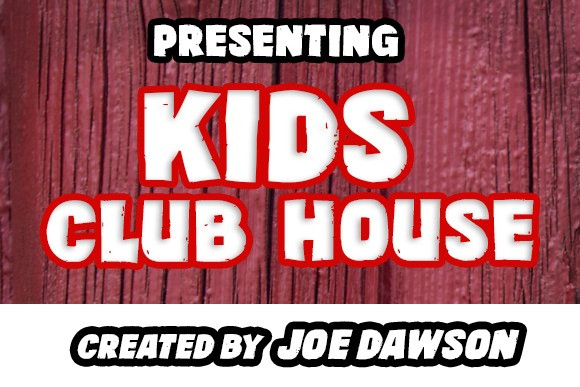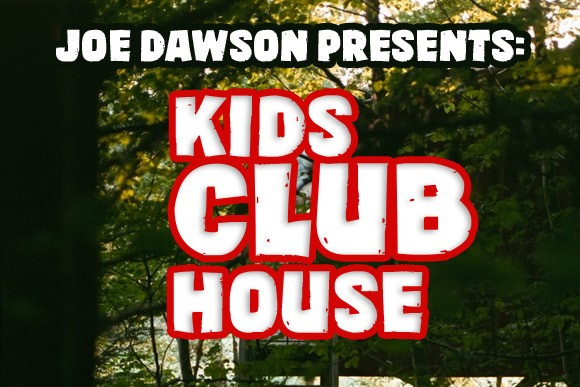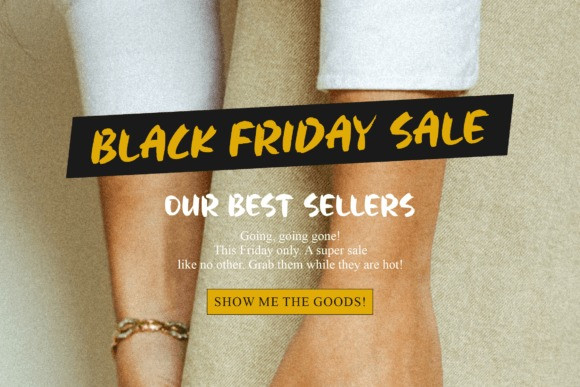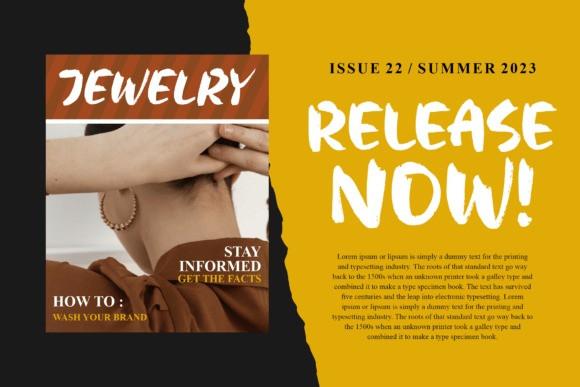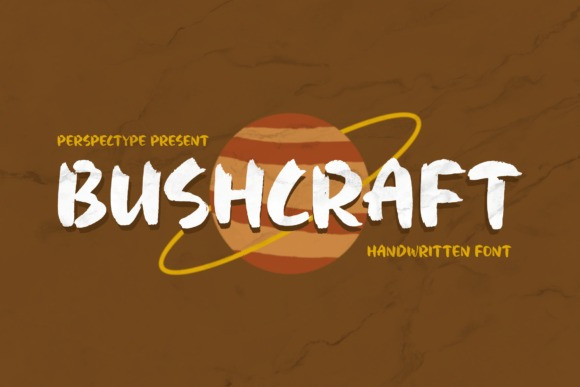
Bushcraft Font
Bushcraft – Display font suitable for any projects such as logos, branding projects, homeware designs, product packaging, mugs, quotes, posters, shopping bags, t-shirts, book covers, name cards, invitation cards, greeting cards, labels, photography, watermark, special events, and all your other lovely projects that need a beautiful script taste.